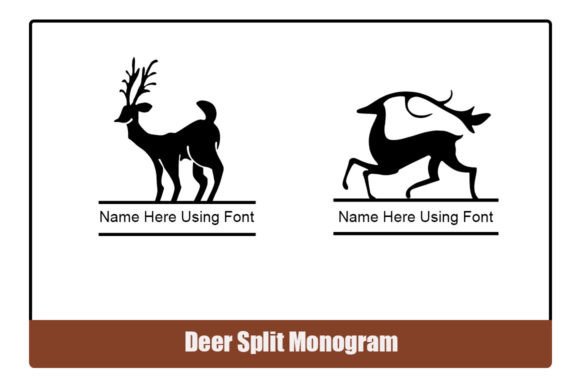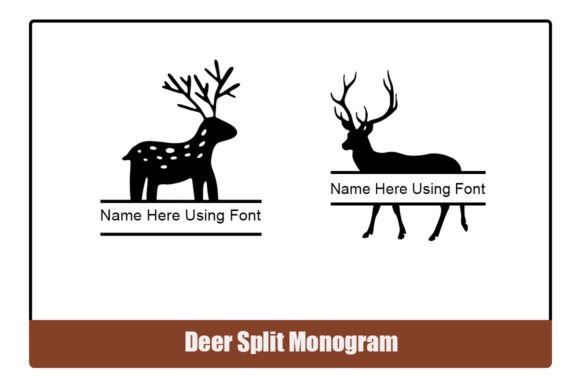
Introducing Deer Split Monogram Font: A Handcrafted Christmas Split Monogram for Your Creative Projects
Are you a designer or crafter looking for a unique and festive touch to add to your Christmas-themed projects? Look no further than the Deer Split Monogram Font! This handcrafted split monogram is specifically designed to bring a touch of holiday cheer to your scrapbooking, merchandise, clothing, collages, and many other creative endeavors.
What is Deer Split Monogram Font?
Deer Split Monogram Font is a carefully crafted Christmas split monogram font that is optimized to ensure you get the best results with minimum effort. Its handcrafted design makes it a one-of-a-kind addition to any project, giving it a personal and distinctive touch. Whether you’re working on a holiday-themed scrapbook page, creating custom merchandise, or designing festive clothing, this monogram font is sure to impress.
Key Features of Deer Split Monogram Font
- Handcrafted Design: Each letter and detail has been carefully crafted to ensure a unique and personalized look.
- Christmas Theme: Perfectly suited for holiday-themed projects, this monogram font adds a touch of festive cheer to any design.
- Split Monogram: The split monogram design allows for endless creative possibilities, making it easy to incorporate into various projects.
- Optimized for Best Results: With its optimized design, you can achieve professional-looking results with minimal effort.
- Versatile: Suitable for a wide range of projects, including scrapbooking, merchandise, clothing, collages, and more.
Why Choose Deer Split Monogram Font?
With Deer Split Monogram Font, you can elevate your designs and add a touch of elegance and sophistication. Its unique, handcrafted design ensures that your projects stand out from the crowd, making it perfect for designers and crafters who want to create something truly special. Additionally, its versatility and ease of use make it an excellent choice for those who want to achieve professional-looking results without spending hours on design.
- Create custom holiday cards and invitations with a personal touch.
- Design festive scrapbook pages that showcase your favorite holiday memories.
- Make unique and personalized merchandise, such as t-shirts, mugs, and tote bags.
- Add a touch of holiday cheer to your website or blog with custom graphics and headers.
Tips and Tricks for Working with Deer Split Monogram Font
To get the most out of Deer Split Monogram Font, here are a few tips and tricks to keep in mind:
- Combine Deer Split Monogram Font with other festive fonts and graphics to create a unique look.
- Use the split monogram design to create a sense of movement and flow in your projects.
- Don’t be afraid to get creative and try new things – the possibilities are endless!